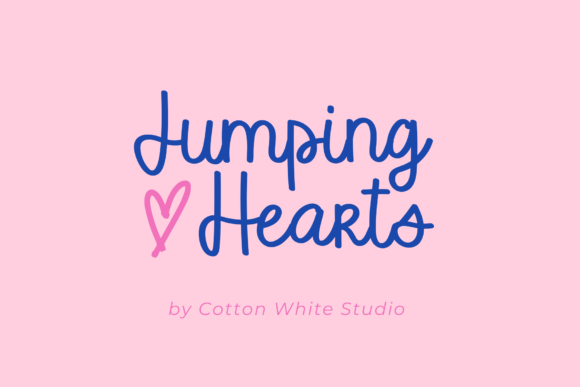
Welcome to the world of Jumping Hearts, a script font family that effortlessly captures the essence of handwritten elegance. Whether you're a seasoned designer or a creative enthusiast, let Jumping Hearts ignite your projects with its captivating charm.
Step into a realm where creativity and expression dance in perfect harmony. Jumping Hearts is your gateway to a world of unique and versatile fonts, meticulously crafted to bring your artistic visions to life. Embark on a journey of self-expression, where every word, every letter, and every design element tells a captivating story.
Express yourself with Jumping Hearts' enchanting digital planner, where your thoughts and aspirations take center stage. Create stickers that burst with vibrancy, quotes that resonate with the soul, and greeting cards that touch hearts. Transform tea towels into canvases of creativity, and elevate apparel, pillows, and mugs with enchanting designs.
Let Jumping Hearts adorn your toys, posters, and baby clothing, weaving tales of innocence and joy. Illustrate picture books with whimsical characters and create visual masterpieces that spark imagination. With Jumping Hearts, the possibilities are endless.
Unleash the creative force within and make your mark on the world. Whether you're a seasoned designer or a budding artist, let Jumping Hearts be your muse. Embrace the beauty of the handwritten, and create designs that speak volumes without uttering a single word.